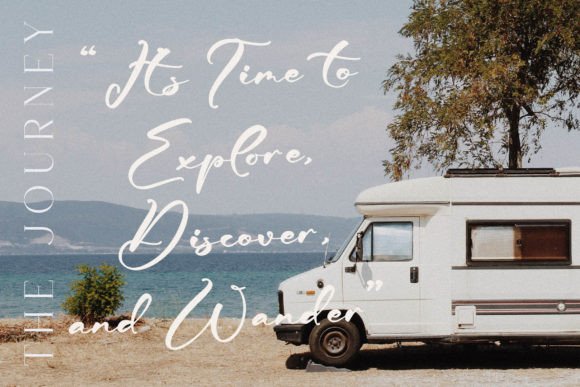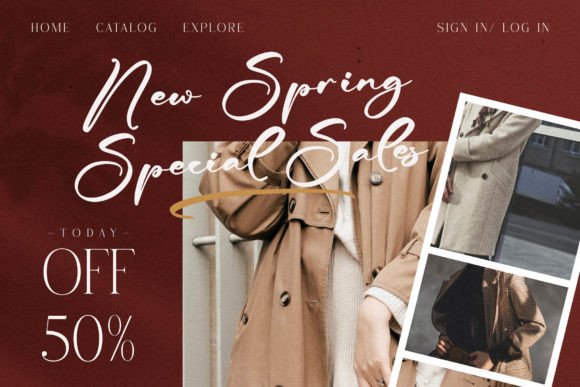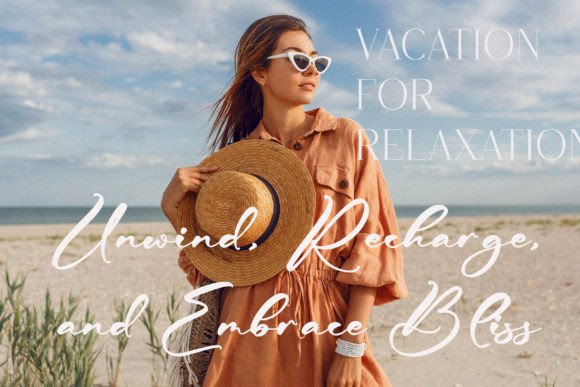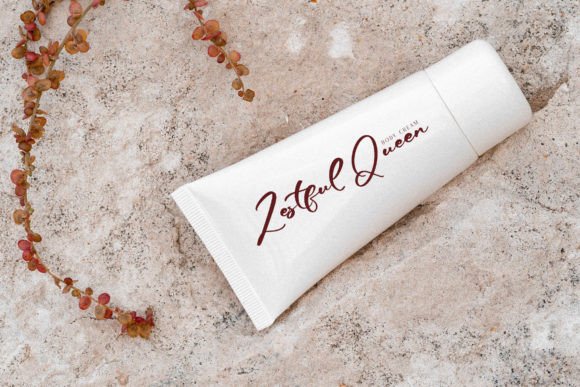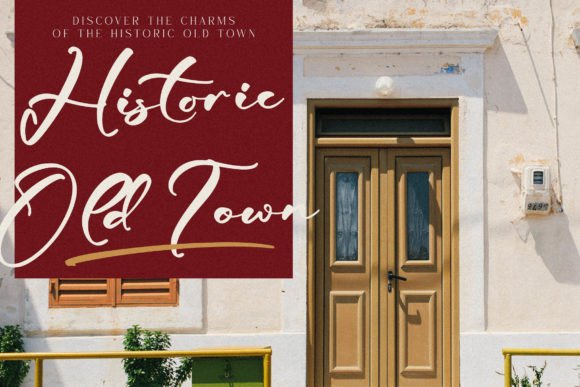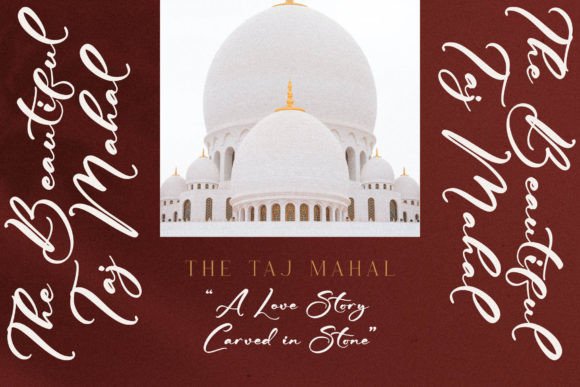
Introduction to Brillytan Flemingo Font
Brillytan Flemingo is a fluid handwritten font, suitable for any projects such as logos, branding, homeware designs, product packaging, mugs, quotes, posters, shopping bags, t-shirts, book covers, name card, invitation cards, greeting cards, label, photography, watermark, special events, and all your other lovely projects that need a beautiful script taste.
Key Features of Brillytan Flemingo Font
Why Choose Brillytan Flemingo Font?
Brillytan Flemingo Font offers exceptional quality and versatility, making it a valuable addition to your design toolkit. Whether you’re creating for personal projects or commercial use, Brillytan Flemingo Font delivers professional results.